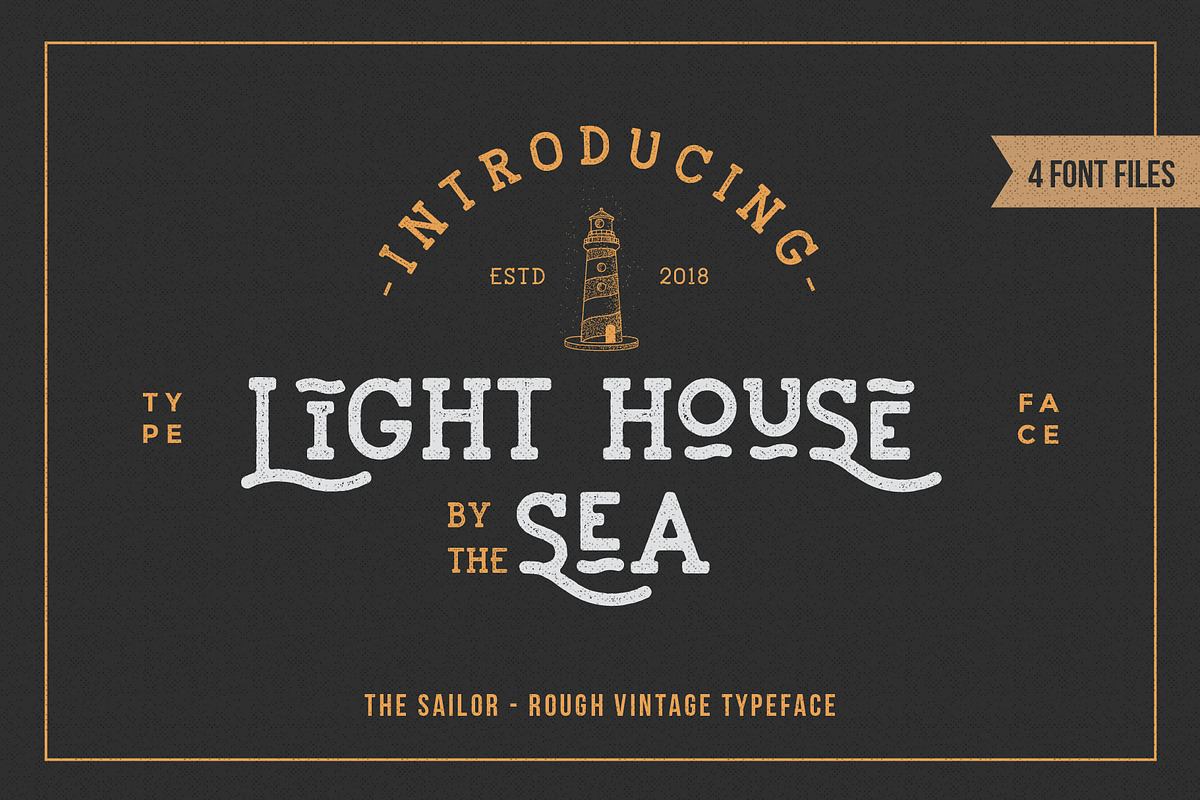
The LightHouse – Sailor Rough Typeface Free Download is a rugged, nautical-inspired typeface perfect for vintage branding, maritime logos, adventure posters, apparel design, and handcrafted packaging. Its weathered texture and bold serif style evoke the spirit of old lighthouses, sailor tattoos, and sea-worn signage.
With strong, uneven strokes and a distressed finish, LightHouse delivers a sense of authenticity and character. It includes uppercase characters, numbers, punctuation, and multilingual support—offering everything you need to create gritty, adventurous design work with a timeless look.